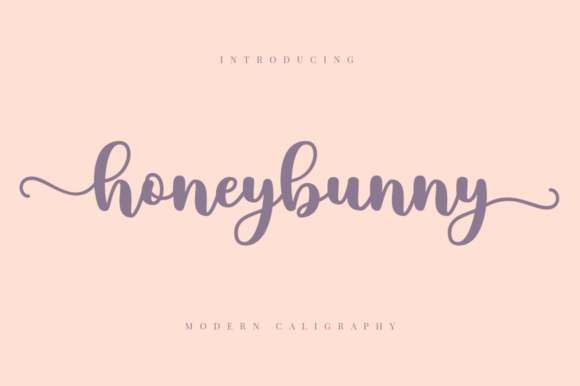
Step into the world of Honeybunny Font, a captivating creation from Haffa Studio, where elegance and charm intertwine. This script font, a symphony of curves and flourishes, is the ultimate choice for crafting wedding cards that exude timeless romance and heartfelt emotions.
With Honeybunny Font, your words become an exquisite dance on paper, a reflection of the love and joy that fill your hearts. Its meticulously crafted glyphs and ligatures, accessible with PUA encoding, allow for effortless customization, transforming your designs into masterpieces of typography.
Journey through a realm of endless possibilities, where Honeybunny Font graces invitations, menus, love letters, and more. Its versatile nature shines through, adapting seamlessly to a myriad of styles, from classic and timeless to whimsical and playful.
Embrace the enchanting allure of Honeybunny Font and watch your designs blossom into works of art. Its ravishing style will captivate hearts, leaving an enduring impression that whispers of love, laughter, and happily ever after.